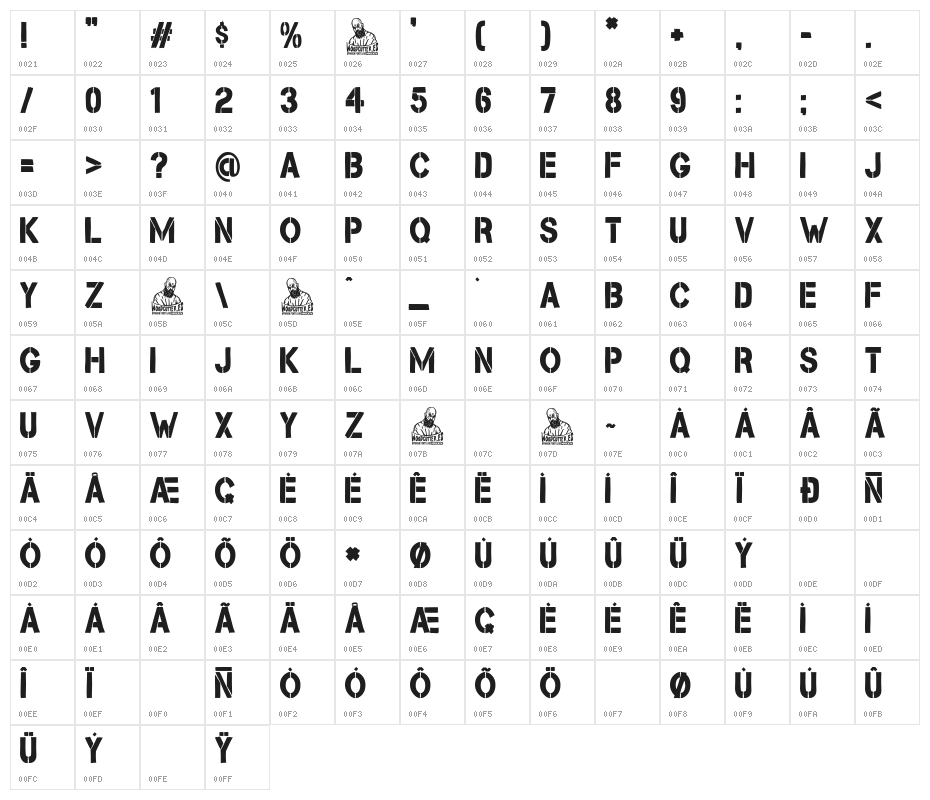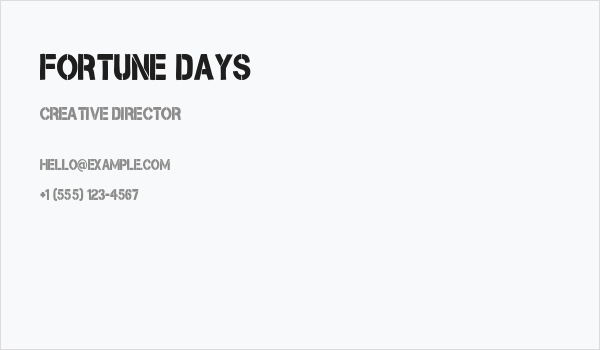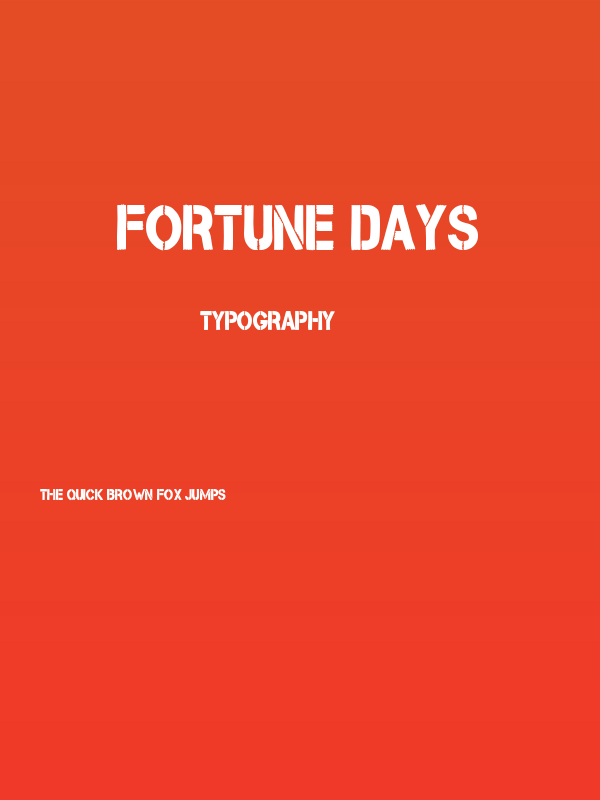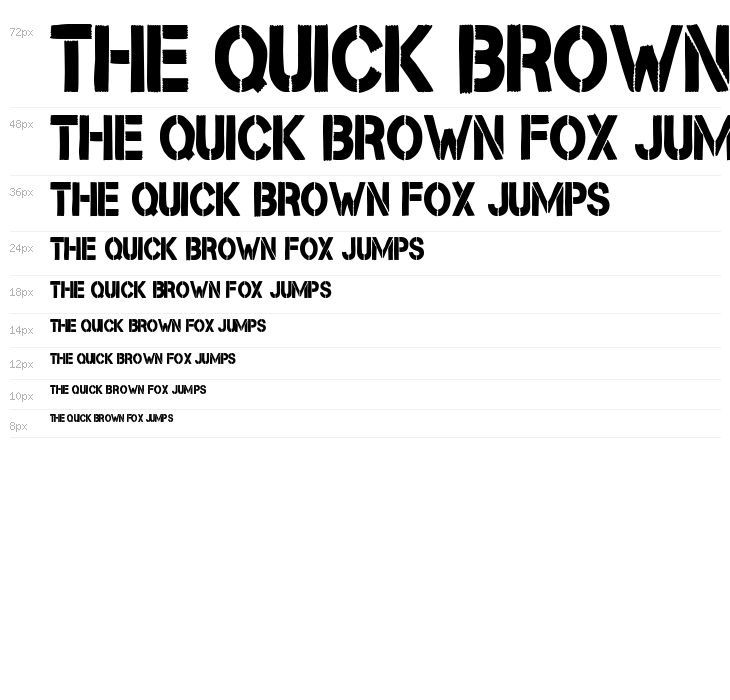
Fortune Days Font
Fortune Days Description
A bold, stencil-style display font with rough, jagged edges and a distressed texture, featuring uppercase letters, numerals, and select punctuation. The characters are split vertically with a sawtooth effect, giving a rugged, industrial appearance.
| Overall Style | Decorative, Industrial, Grunge |
| Use Case | Headlines, Posters, Logos, Signage |
| Proposed Projects | Posters, event flyers, urban branding, music album covers, industrial-themed graphics. |